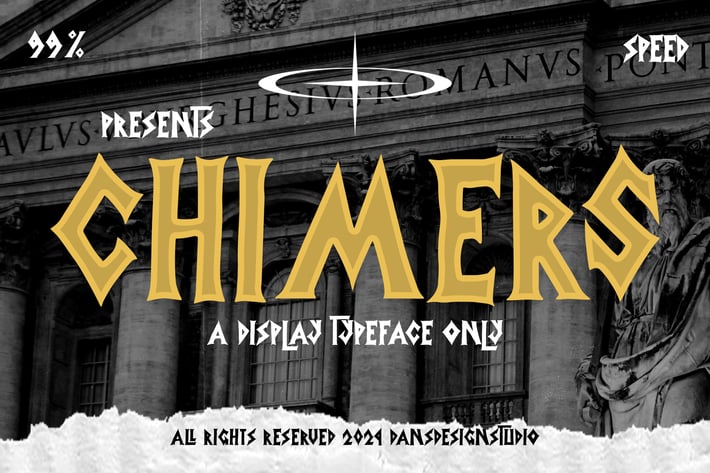
Chimers Graffiti Y2k Display Font
Chimers Graffiti Y2k Display Font a distinct, highly detailed. Marker Display Font.
It would make a great choice for exquisite retro-urban designs, business branding, logos, Apparel designs, and more.